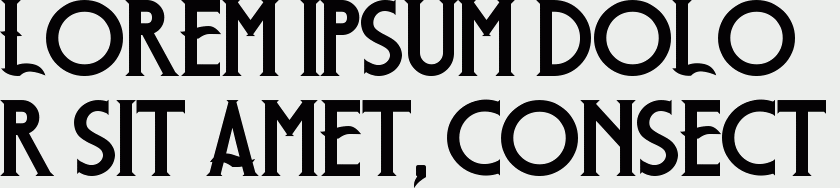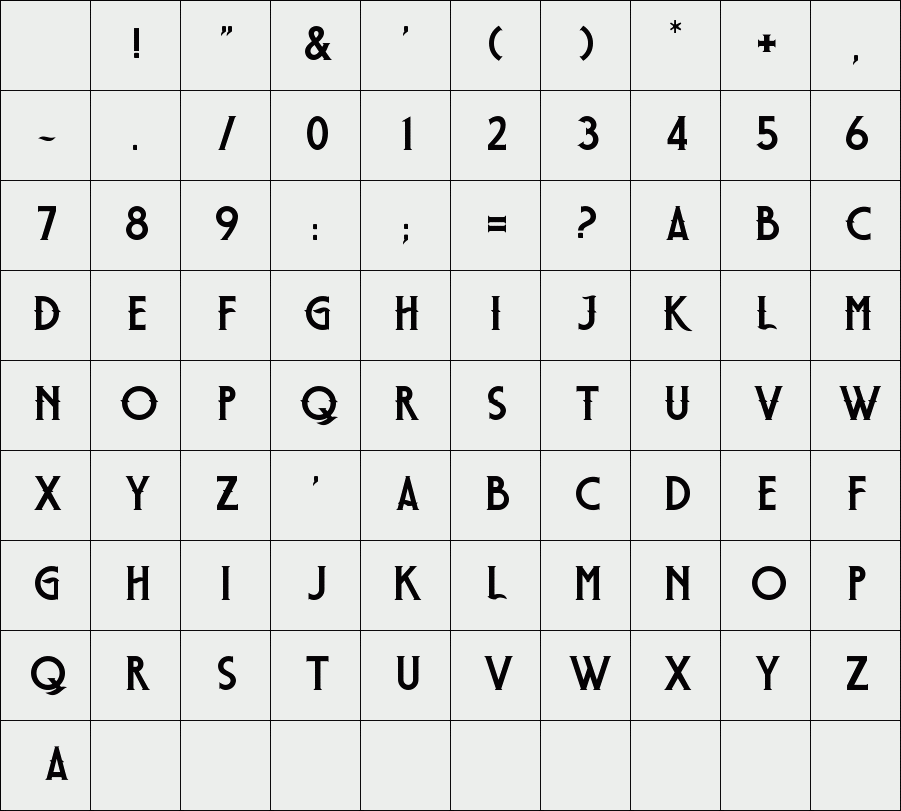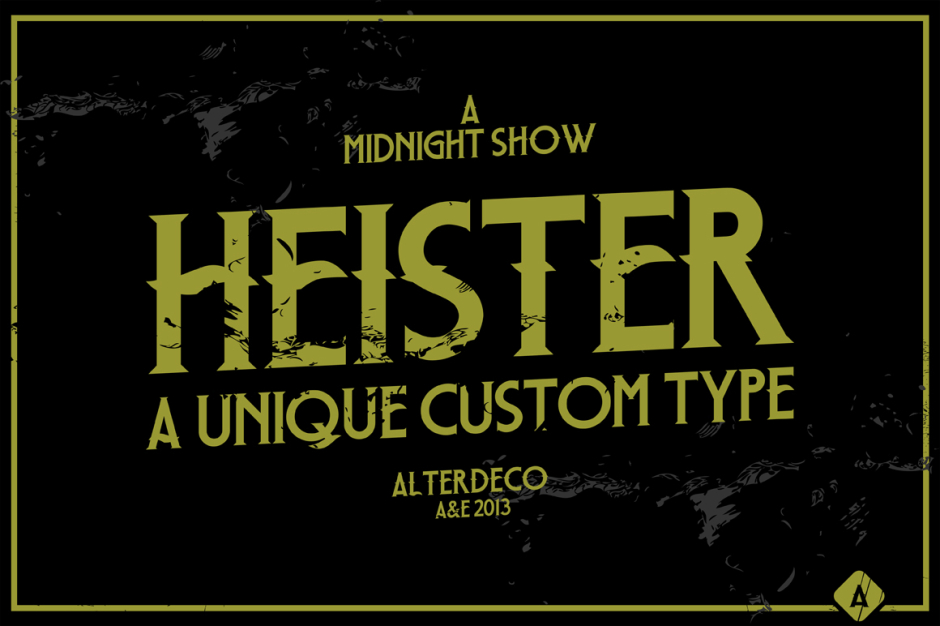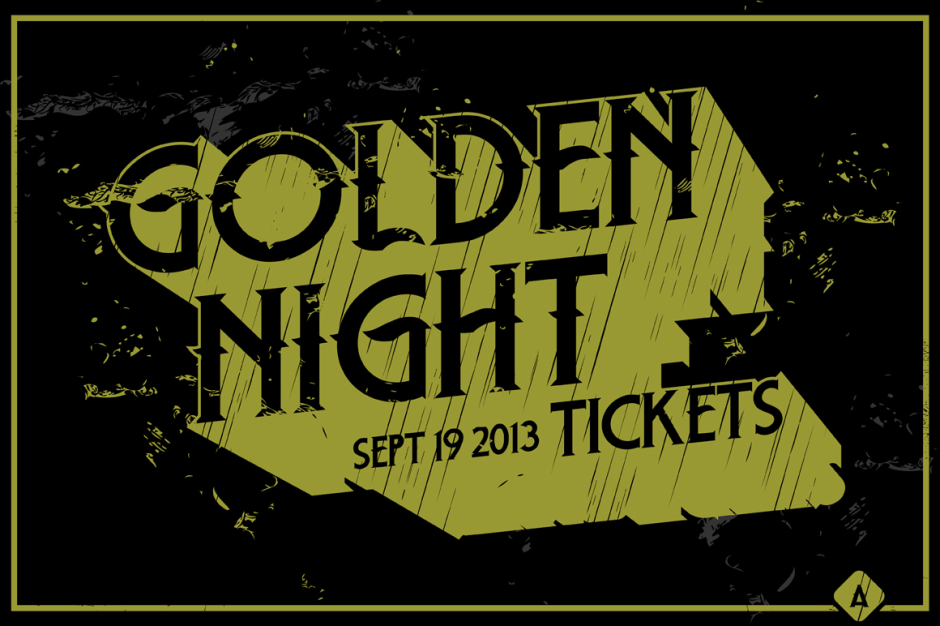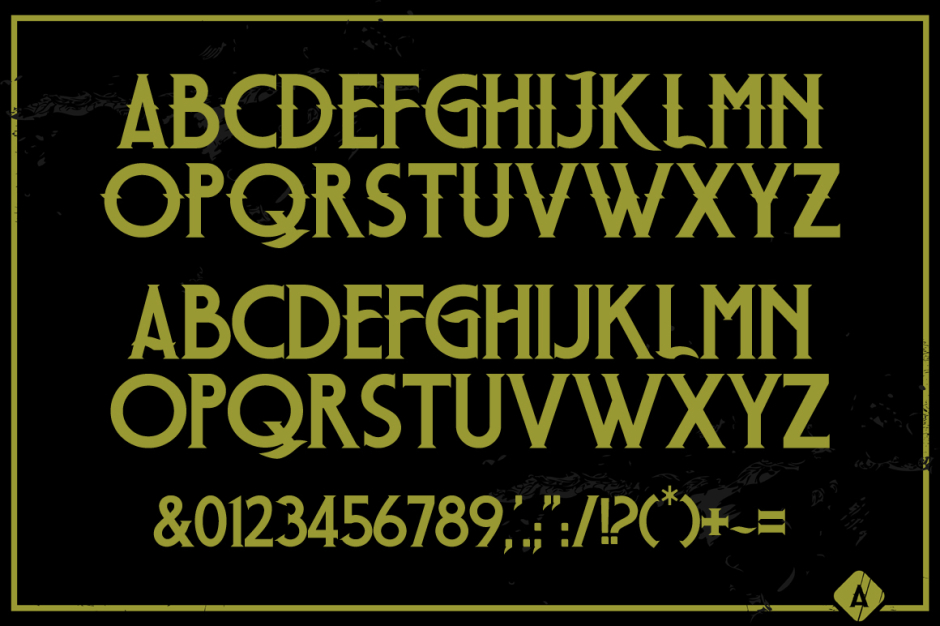
HeisterType - Regular
/ Heister Type
Heister Type was inspired by the old school typography, combining art deco and modern typefaces, it's recomended to use it for brand, logotype, apparel design, band, or any others...